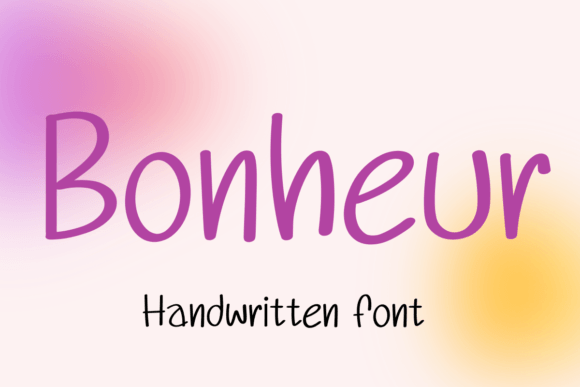
Unleash the whimsical charm of Bonheur, a playful handwritten sans serif font that will ignite your creativity and transform your designs into enchanting masterpieces. Dive into a world of boundless possibilities with Bonheur, the perfect font to capture the essence of joy and lightheartedness. Its unique and timeless style will add a touch of magic to your projects, leaving a lasting impression on your audience.
With Bonheur, you hold the key to unlocking a treasure trove of design possibilities. Its captivating curves and energetic strokes will breathe life into your creations, whether you're crafting eye-catching logos, enchanting invitations, or captivating social media posts. Bonheur is more than just a font; it's an invitation to embark on a creative journey, where your imagination knows no bounds.
Step into the realm of Bonheur and discover a symphony of visual delight. Its playful personality will add a touch of whimsy to your designs, while its timeless elegance ensures that your creations will stand the test of time. From whimsical illustrations to heartfelt handwritten notes, Bonheur is the perfect font to express your individuality and create designs that resonate with your audience.
Let Bonheur be your muse and watch as your designs transform into works of art. Its enchanting aura will captivate your audience, leaving them spellbound by the beauty and creativity that radiates from your creations. Embrace the magic of Bonheur and unlock the extraordinary potential within your designs.